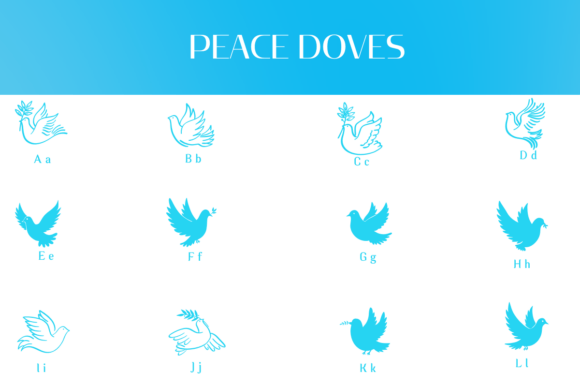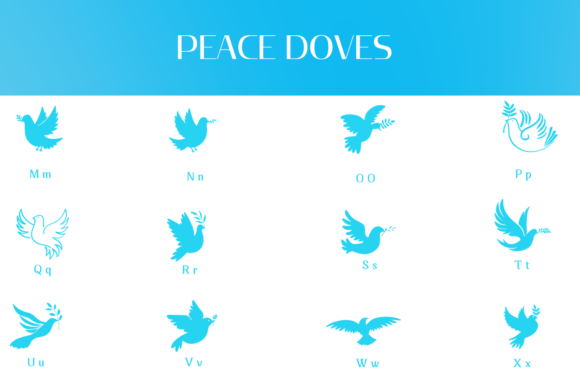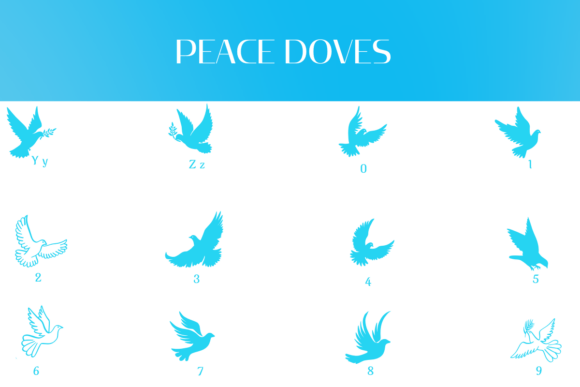
Introduction to Peace Doves Font
Peace Doves Dingbats Font Elevate your designs with the Peace Doves Dingbats Font , a comprehensive collection of illustrative symbols designed to spread a message of harmony and grace.
This unique dingbats font replaces traditional alphanumeric characters with a diverse array of dove silhouettes and line art , making it an essential tool for creators looking to add symbolic depth to their work From minimalist outlines to solid silhouettes , each character captures the dove in various states of flight, nesting, and carrying the iconic olive branch .